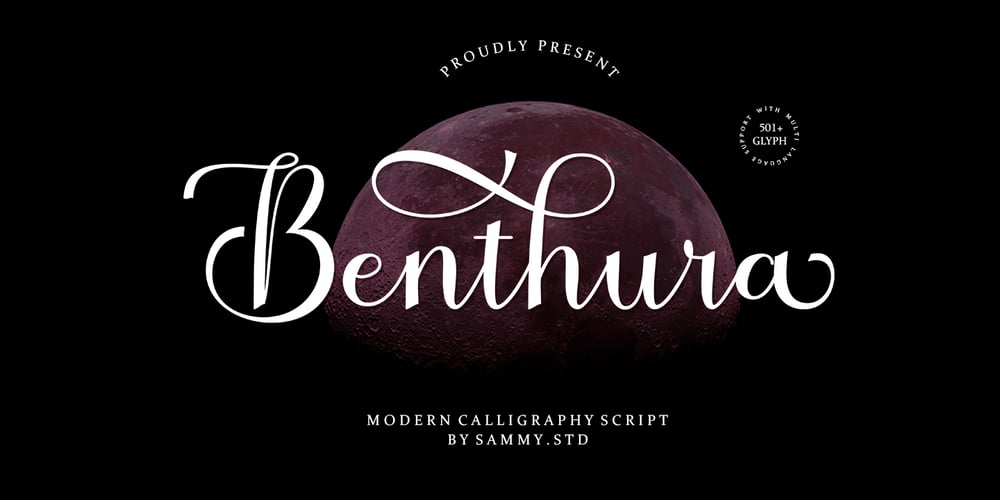
Benthura Script
Benthura Script font
Benthura Script Font Family was designed by Teuku Asrul Sami and published by Assami Studio. Benthura Script contains 2 styles and family package options. Benthura Script is a modern calligraphy. bold, elegant & fun vintage script font. Can be used for various purposes.such as logos, wedding invitation, t-shirt, letterhead, signage, news, posters, badges etc.Benthura Script features 510 glyphs and 279 alternate characters, ligatures, swash and multiple language support.To enable the OpenType Stylistic alternates, you need a program that supports OpenType features such as Adobe Illustrator CS, Adobe Indesign & CorelDraw X6-X7.How to get access alternate glyphs from open type fonts: http://youtu.be/iptSFA7feQ0There are additional ways to access alternates/swashes, using Character Map (Windows), Nexus Font (Windows), Font Book (Mac) or a software program such as PopChar (for Windows and Mac).How to access all alternative characters, using Windows Character Map with Photoshop: https://www.youtube.com/watch?v=Go9vacoYmBwNeed help? If you need help or advice, please contact me.